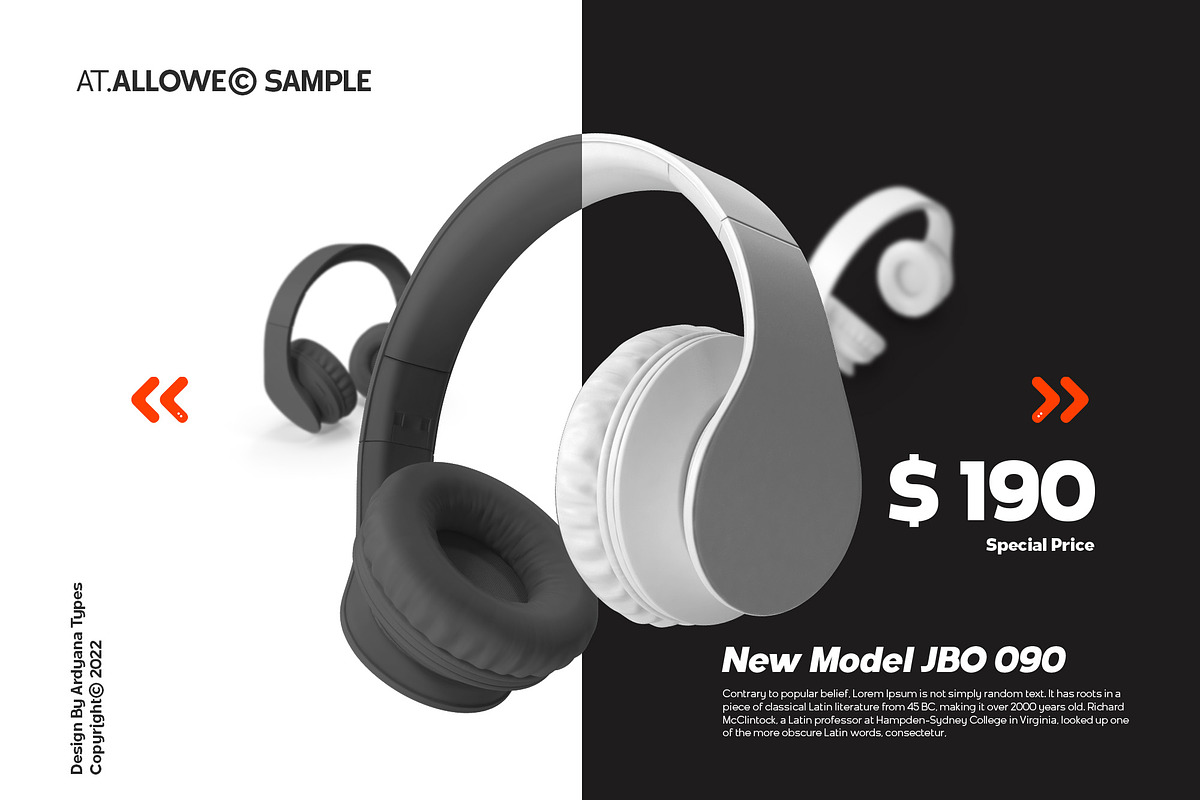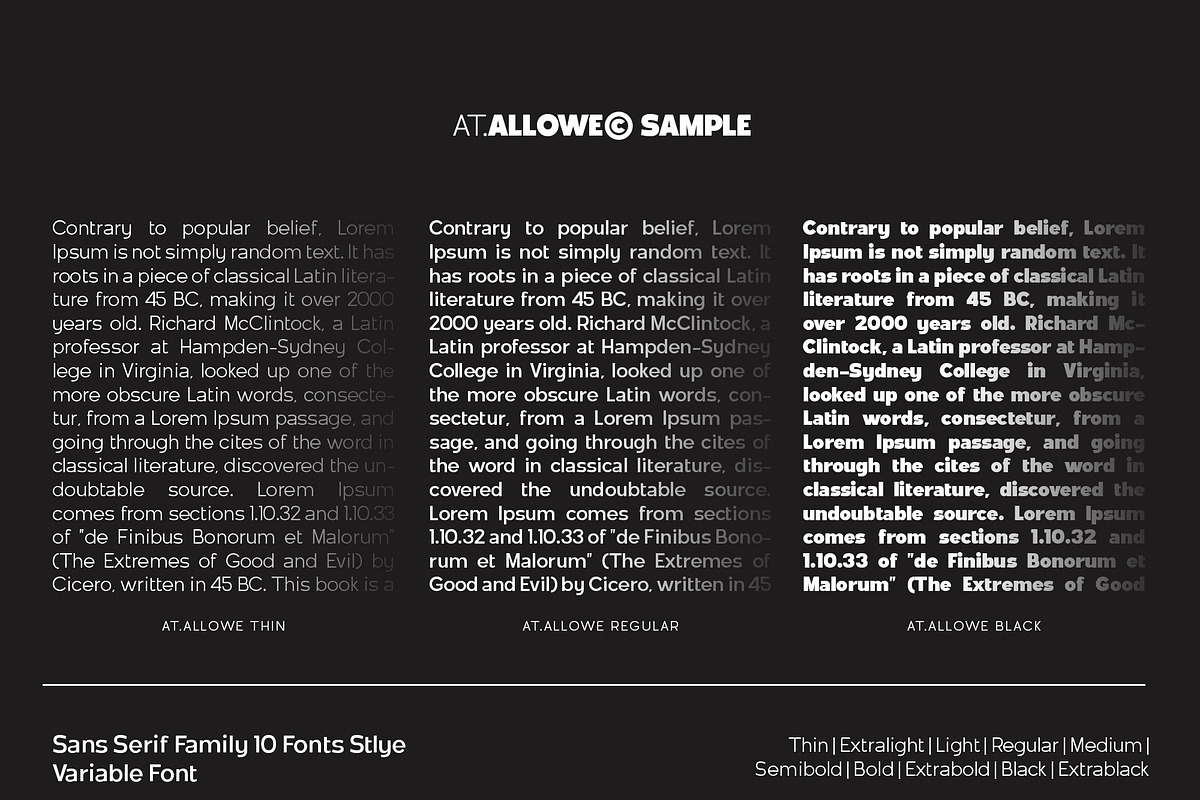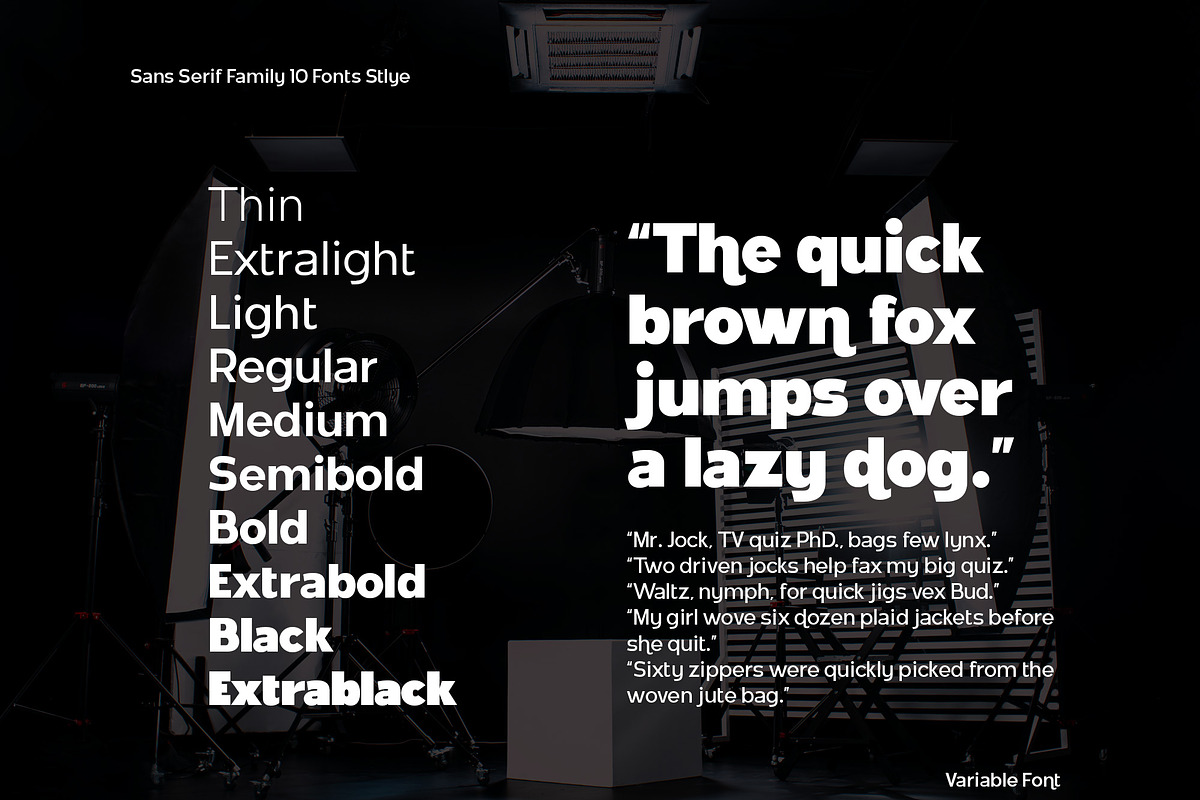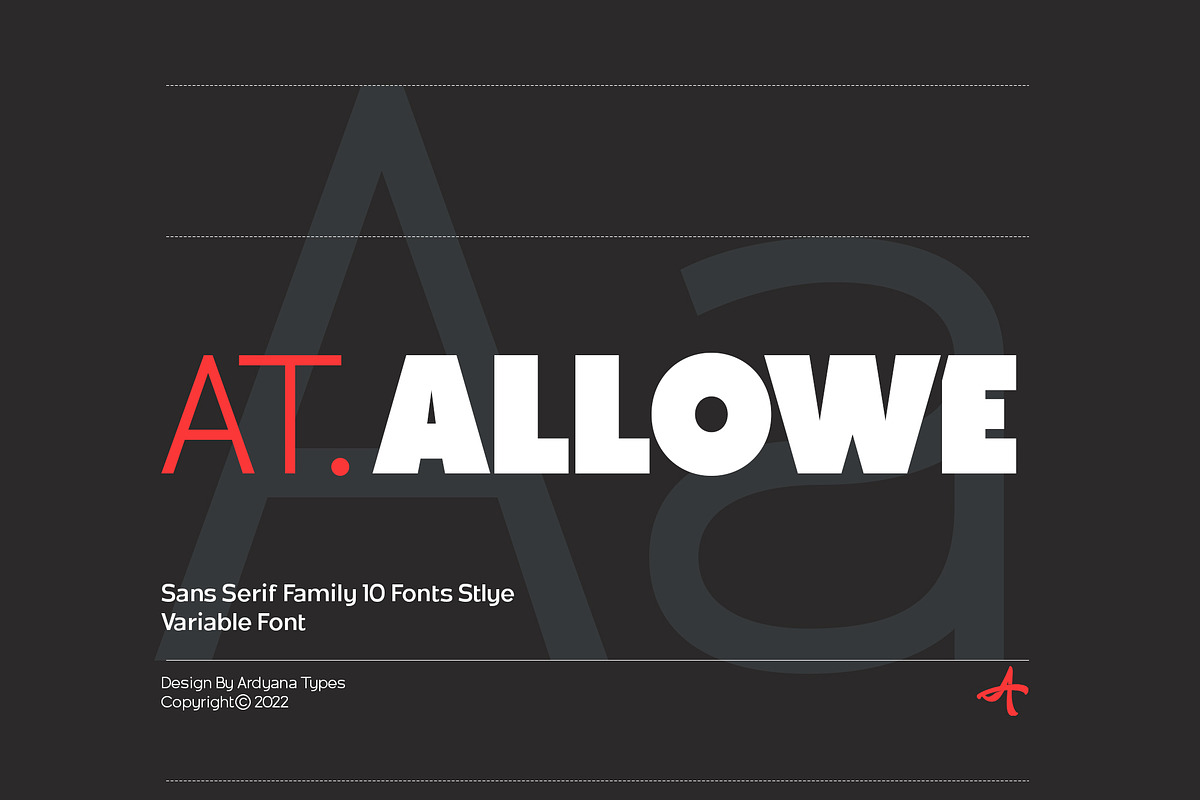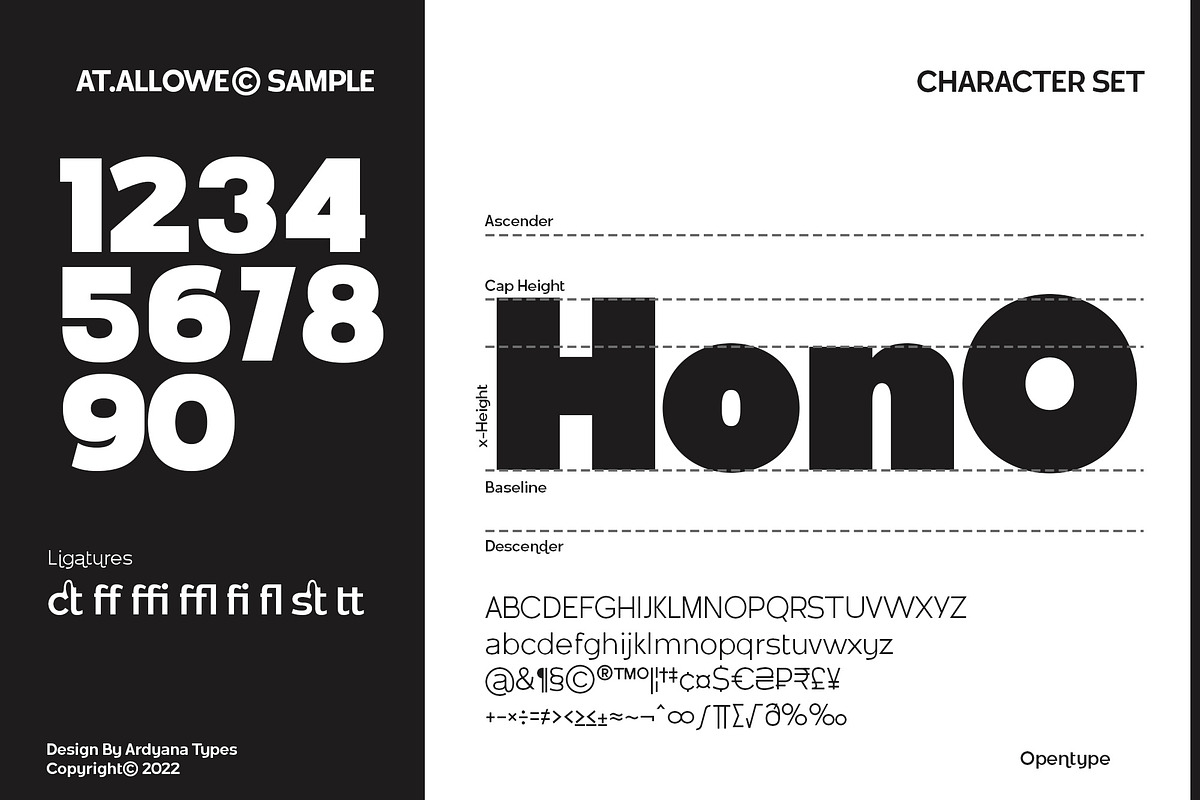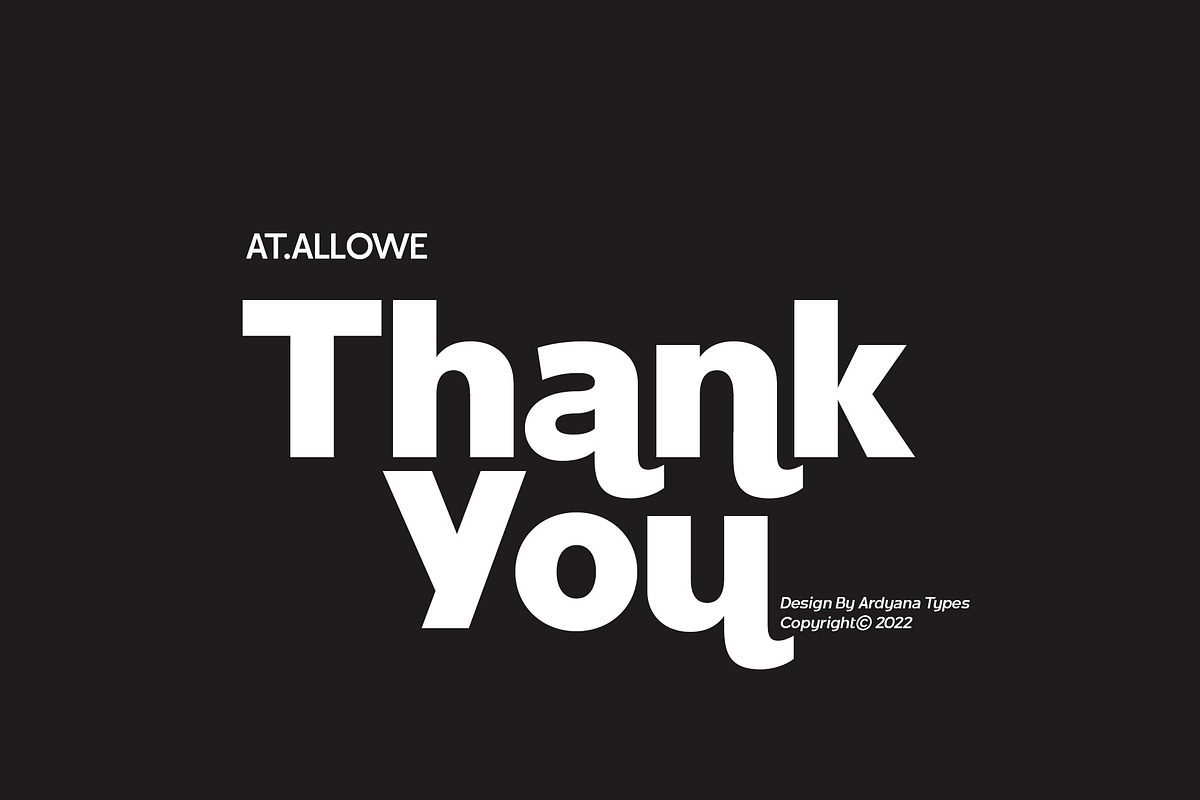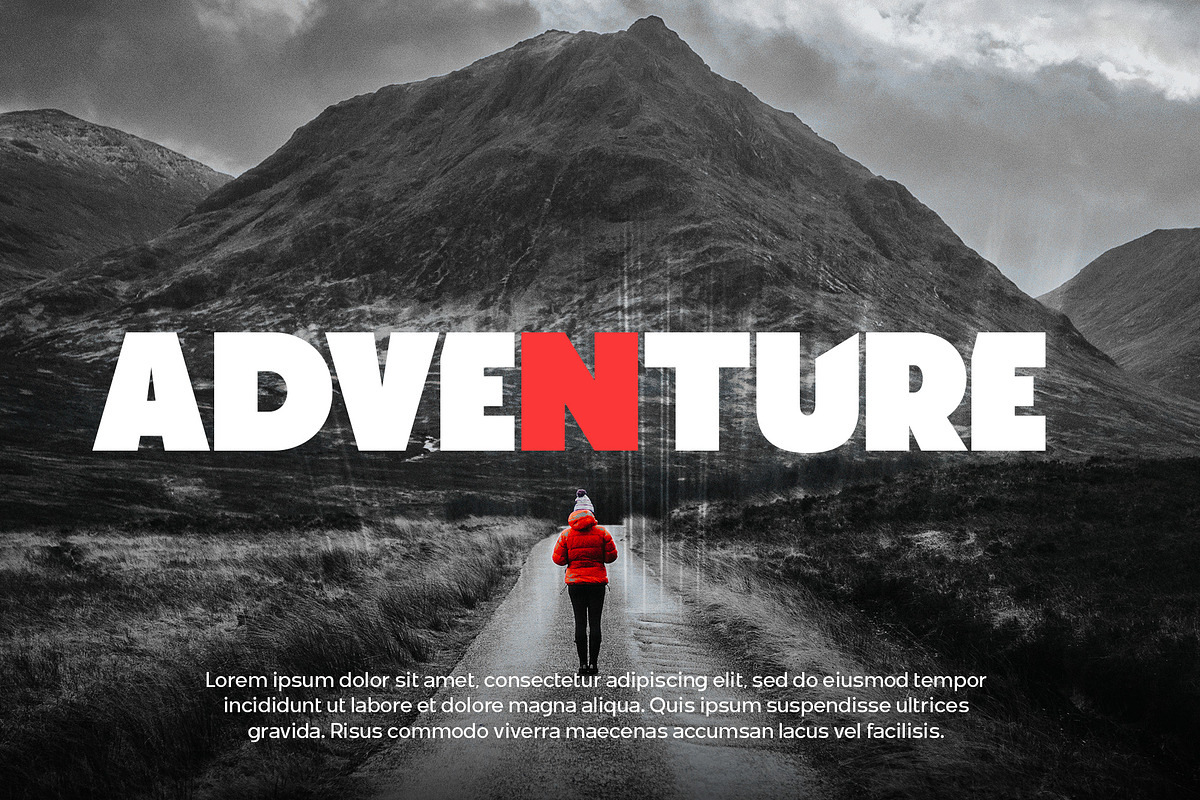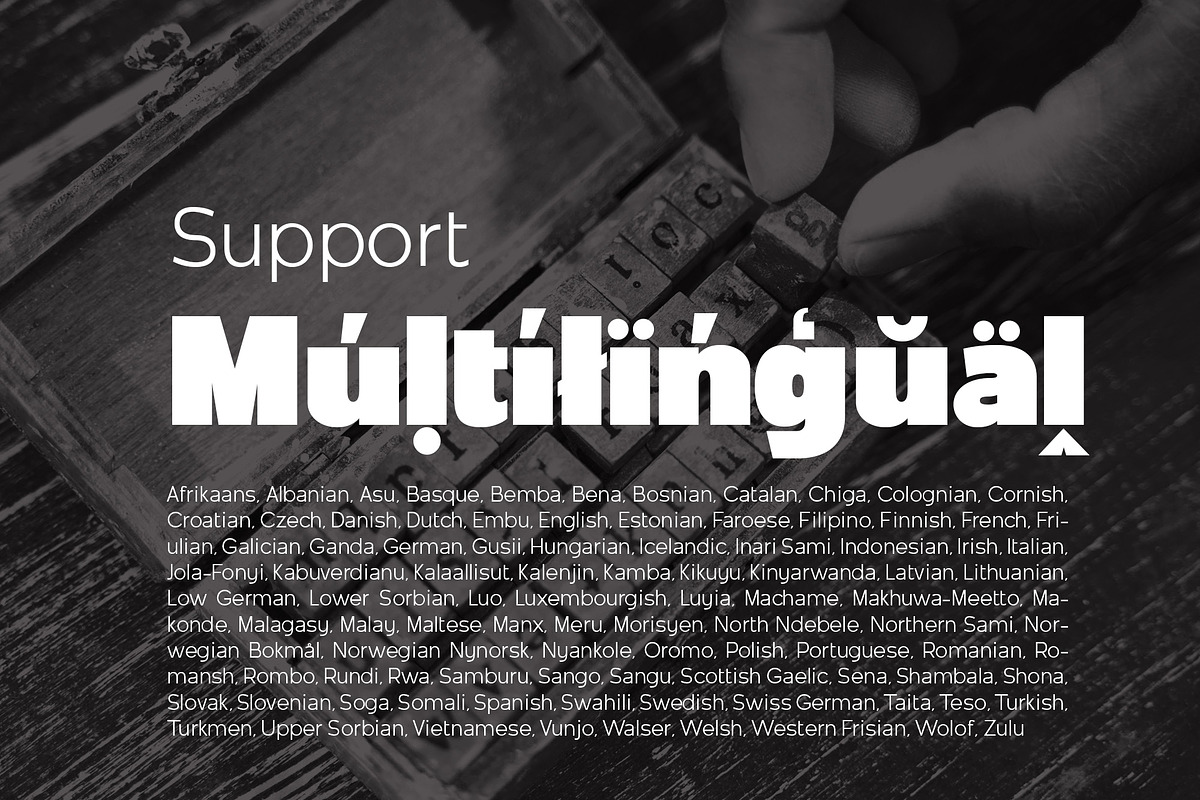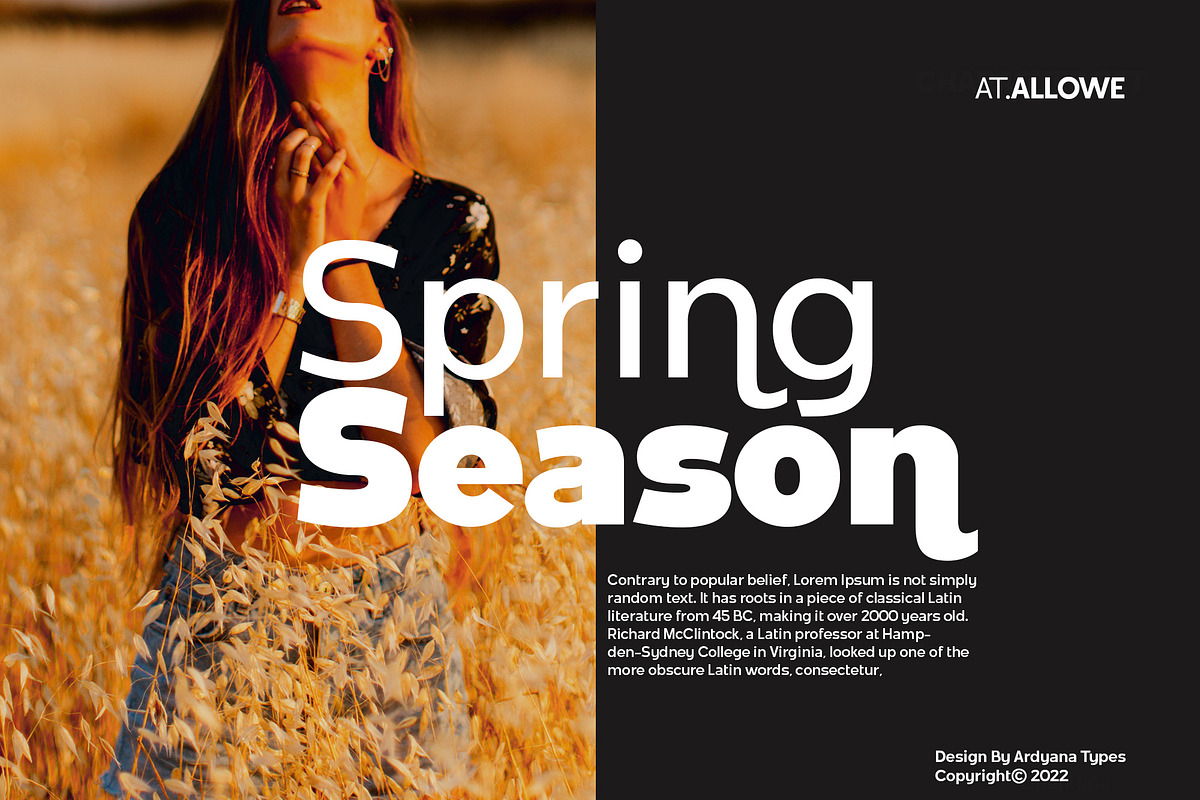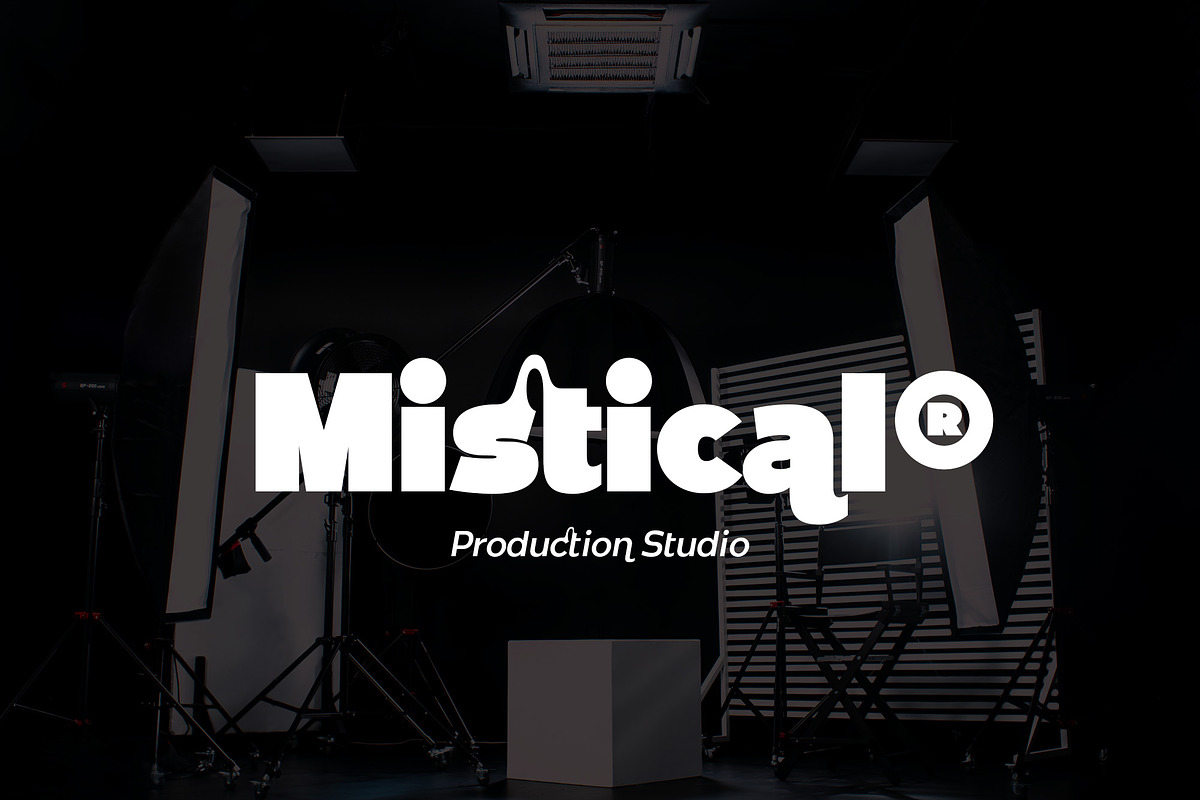
At. Allowe - Sans Serif Family
AT Allowe comes with a geometric sans serif style and a modern and elegant sans serif tagline. This font comes in eight thickness levels, from thin to black to suit your needs. AT Allowe is also equipped with the latest professional characteristics that can present an elegant and attractive identity for your company or project for business purposes. It goes well with modern serifs and scripts depicted or stands firm as a title and brand representative for an elegant look.
AT Allowe also comes with multiple languages, making it easy to use for any country and language use. It also comes with alternative Ligatures and styles to make your designs more attractive. AT Allowe is suitable for branding projects and various design purposes such as business cards, name tags, advertisements, posters, invitations, branding, logos, magazines, merchandise, presentations, etc.
Supports languages: Afrikaans, Albanian, Asturian, Asu, Azerbaijani, Basque, Bemba, Bena, Bosnian, Breton, Catalan, Chiga, Colognian, Cornish, Croatian, Czech, Danish, Dutch, Embu, English, Esperanto, Estonian, Faroese, Filipino, Finnish, French, Friulian, Galician, German, Gusii, Hungarian, Icelandic, Igbo, Indonesian, Irish, Italian, Kabuverdianu, Kalaallisut, Kalenjin, Kamba, Kikuyu, Kinyarwanda, Latvian, Lithuanian, Low German, Lower Sorbian, Luo, Luxembourgish, Luyia, Machame, Makhuwa-Meetto, Makonde, Malagasy, Malay, Maltese, Manx, Meru, Morisyen, North Ndebele, Norwegian Bokmål, Norwegian Nynorsk, Nyankole, Oromo, Polish, Portuguese, Quechua, Romanian, Romansh, Rombo, Rundi, Rwa, Samburu, Sango, Sangu, Scottish Gaelic, Sena, Shambala, Shona, Slovak, Slovenian, Soga, Somali, Spanish, Swahili, Swedish, Swiss German, Taita, Teso, Turkish, Turkmen, Upper Sorbian, Vietnamese, Vunjo, Walser, Welsh, Western Frisian, Yoruba, Zulu
- A – Z Character Set
- a – z Characters set